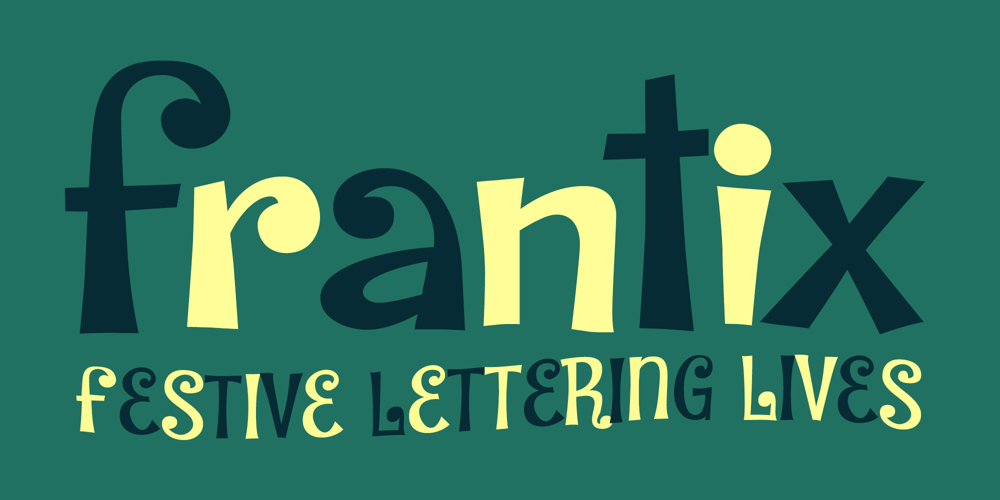
Frantix Font Family was designed by Brian J. Bonislawsky, Dave Cohen and published by One Eyed Squid. Frantix contains 1 styles and family package options. Frantix is the frolicking, festive face your design project craves! It’s full of fun and frivolity and sure to please even the most fervent of font aficionados!Turn on Swashes (Opentype Feature) for a swapped out collection of Swash Capital Alternates.(Frantix contains an extended Latin character set with added Vietnamese support.)